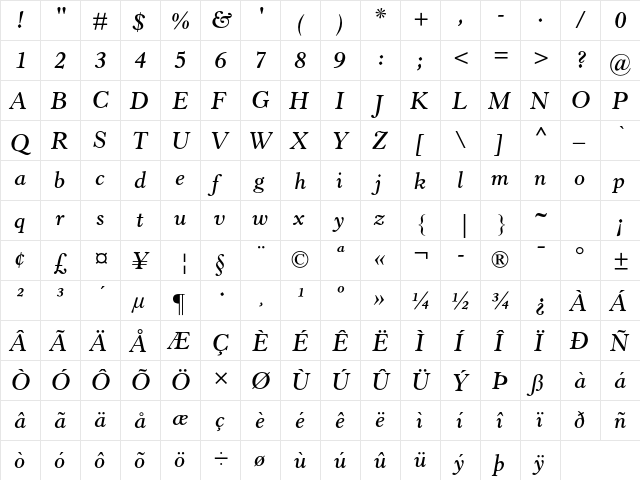
Horley Old Style MT Std Semibold Italic Font Preview
| Style | Semibold Italic |
| Designer | Unknown |
Design Context for Horley Old Style MT Std Typeface
Horley Old Style MT Std takes a measured approach to typography — its balanced proportions and neutral character make it a reliable workhorse for both digital and print work. The dynamic lean of this cut emphasises speed and emphasis in any layout. The heavy weight commands attention and anchors typographic hierarchies.
Pro Tip: Try Horley Old Style MT Std for annotation and caption copy alongside an upright companion — the contrast in angle creates a dynamic but ordered typographic system.